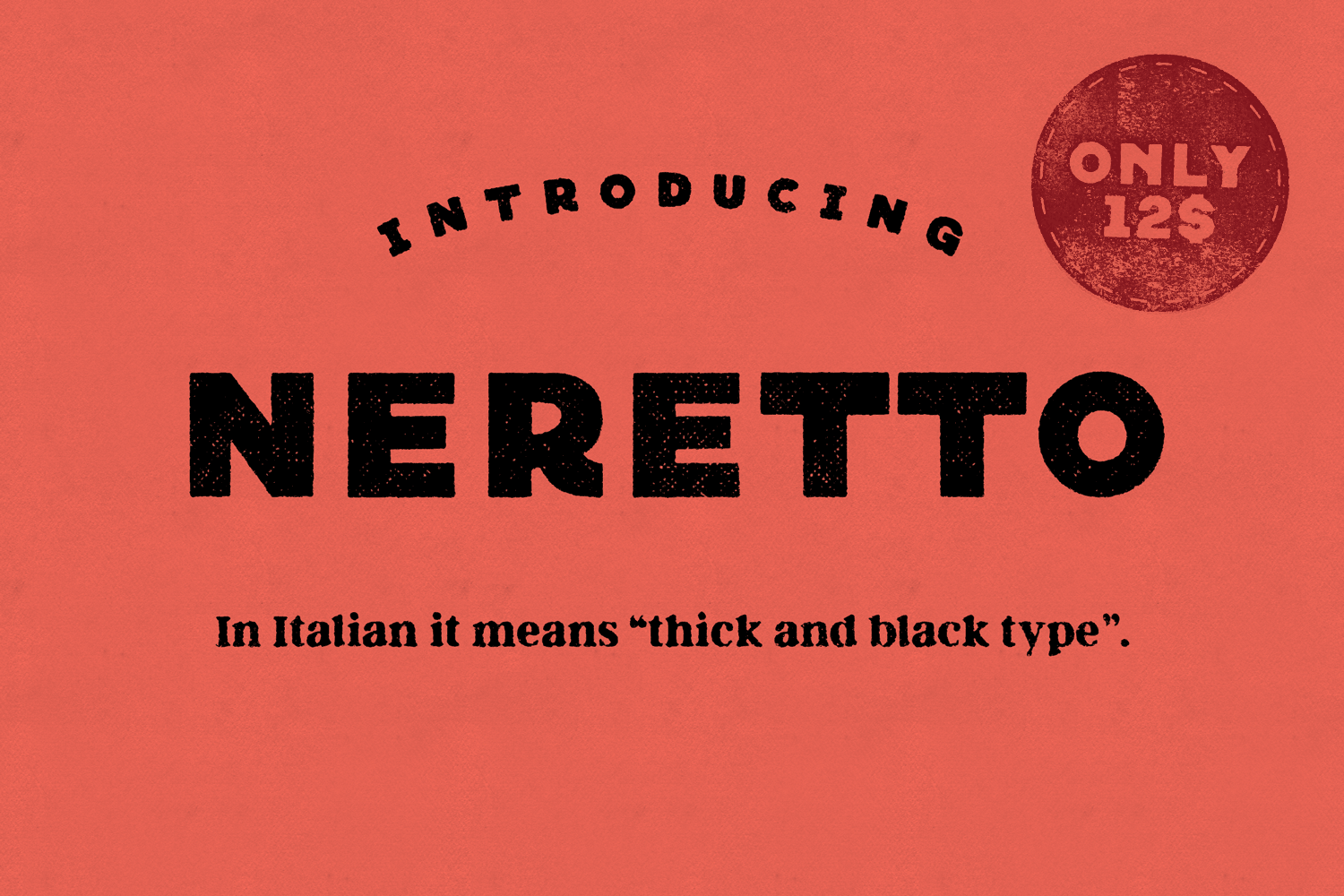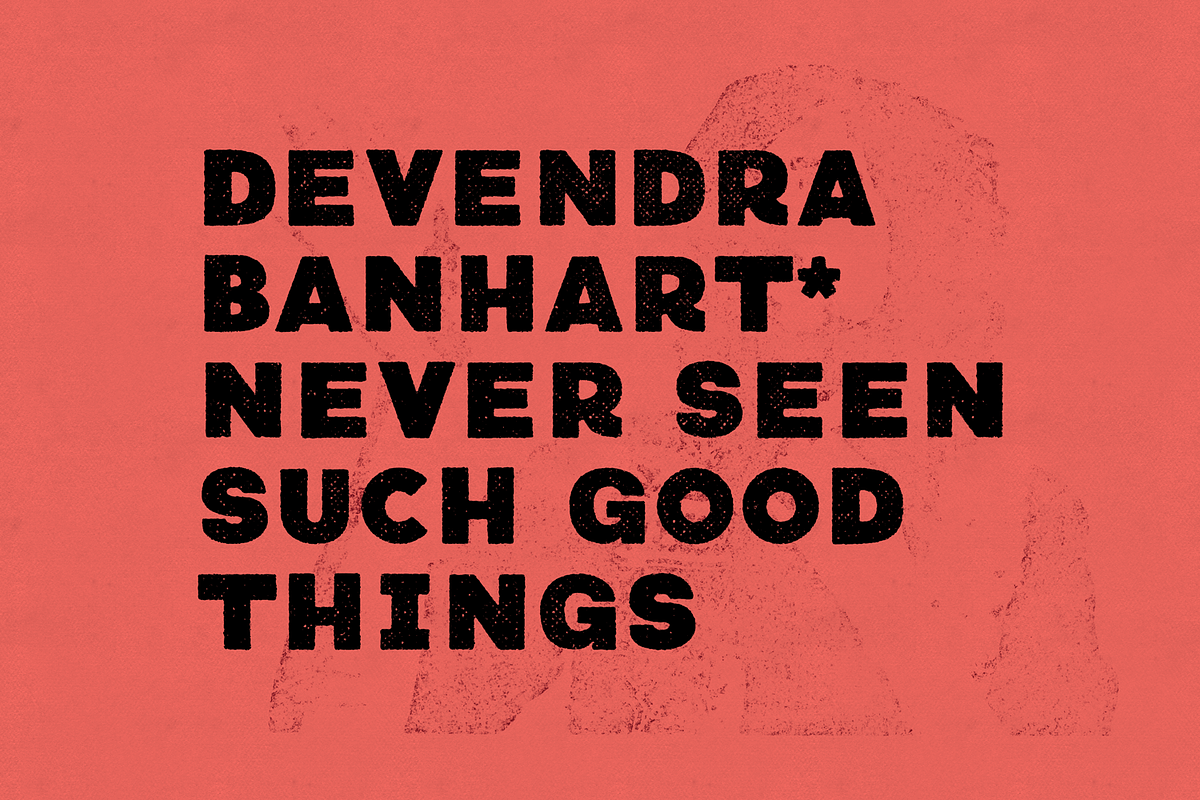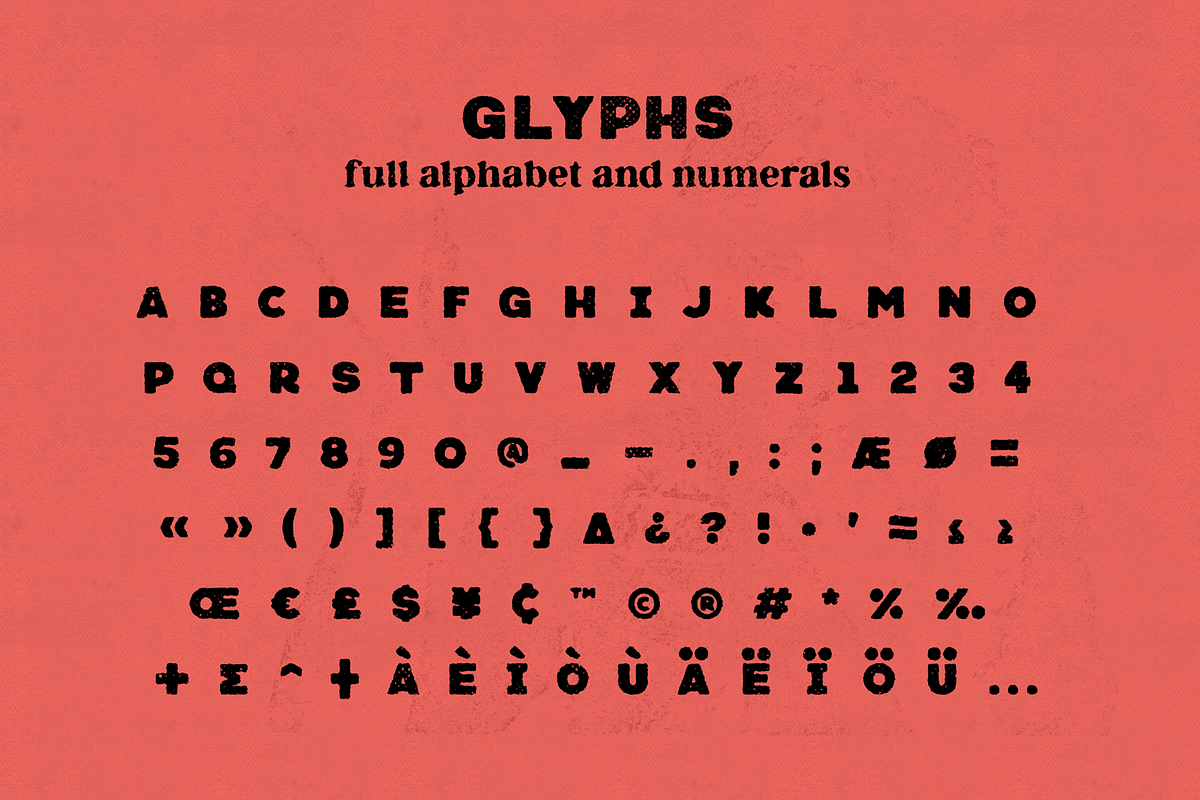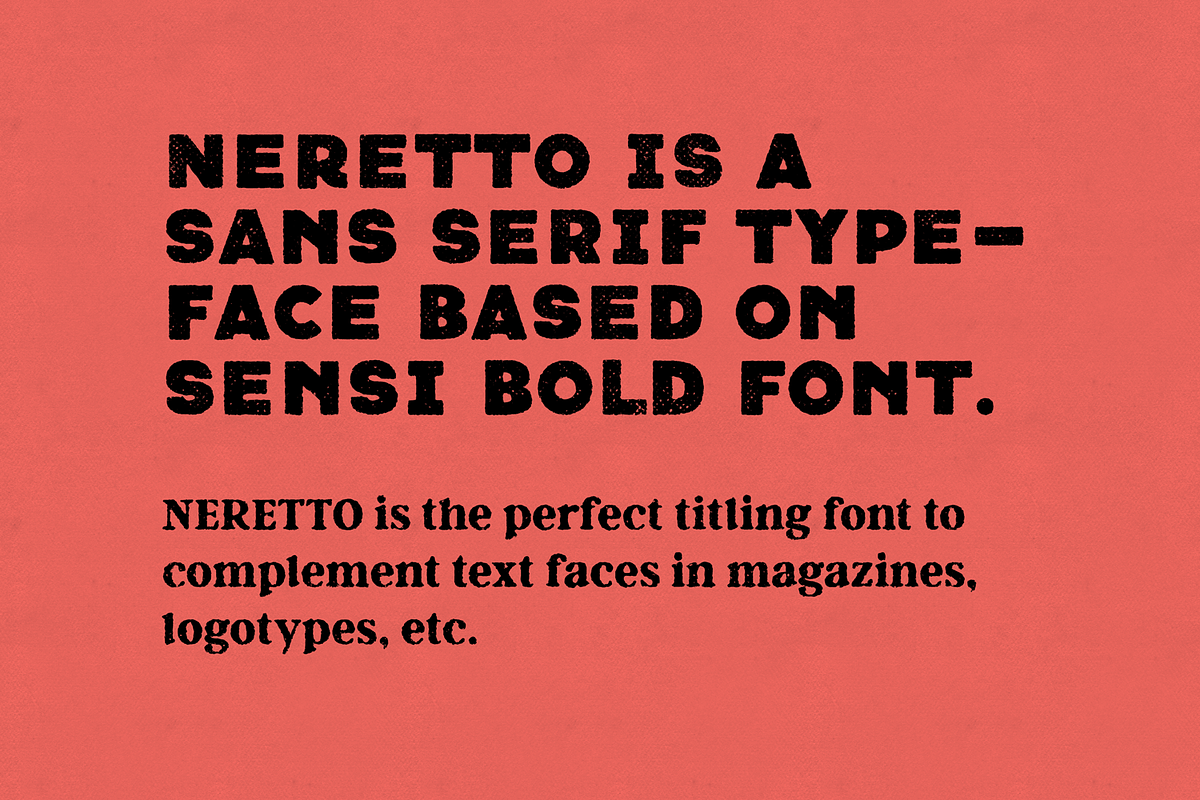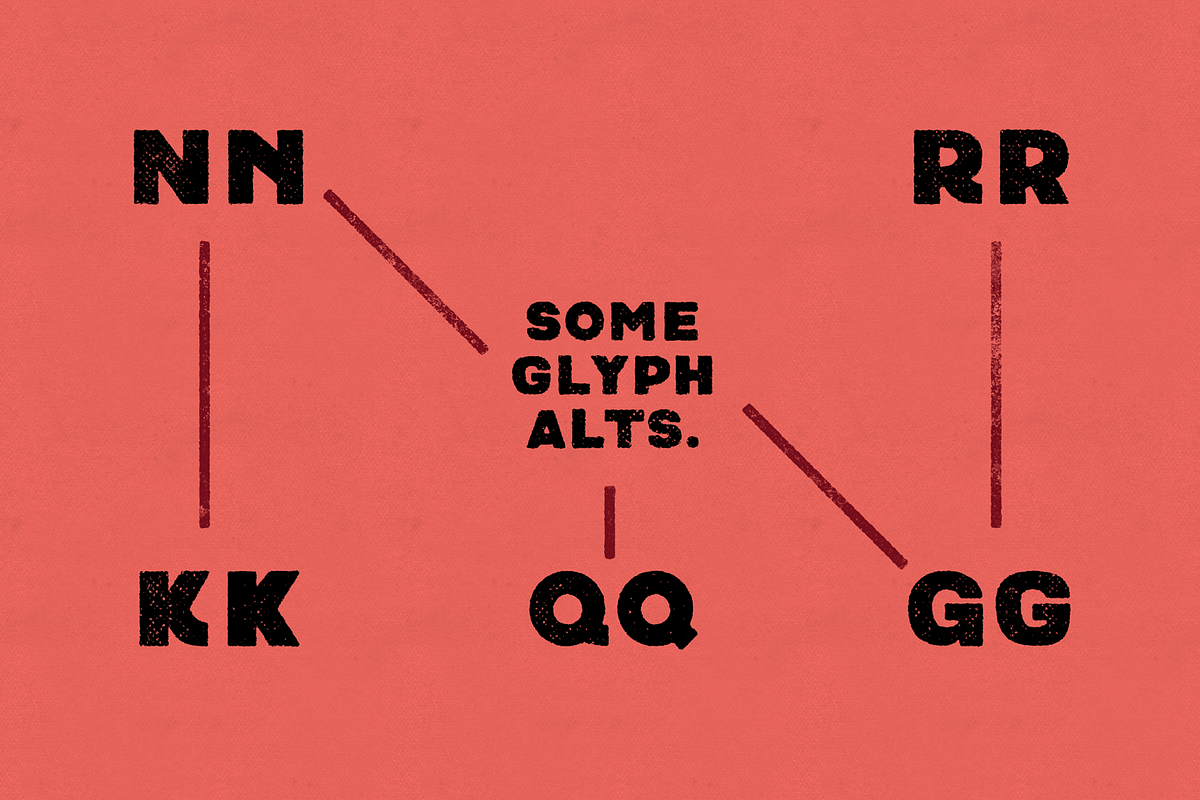
Neretto Sans Font
Say hello to the new NERETTO SANS font, a contemporary sans serif, based on Sensi Bold font, designed by Valerio Dell'Edera. Its name is an Italian word used to denote a thick and black type. Neretto is the perfect titling font to complement text faces in magazines, logotypes, etc.
- Full alphabet and numerals
- Character Ligatures (RA, RE, RI, RO, RU, CO) & some Stylistic Alternates